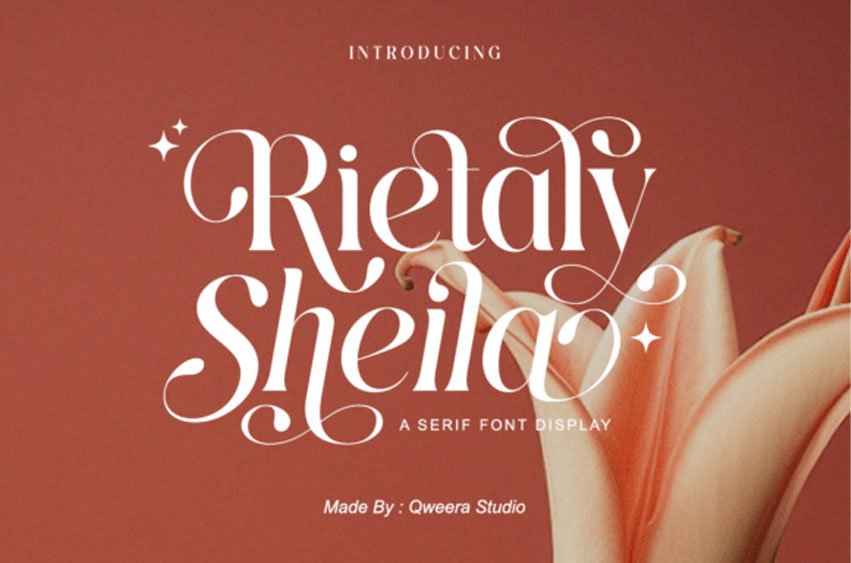
Rietaly Sheila Font is an elegant luxury serif enriched with decorative swashes and artistic ligatures. Perfect for wedding invitations, logos, magazine titles, posters, product packaging, and beauty branding.
This stylish serif blends romantic curves with modern aesthetic, giving your projects a premium editorial feel.